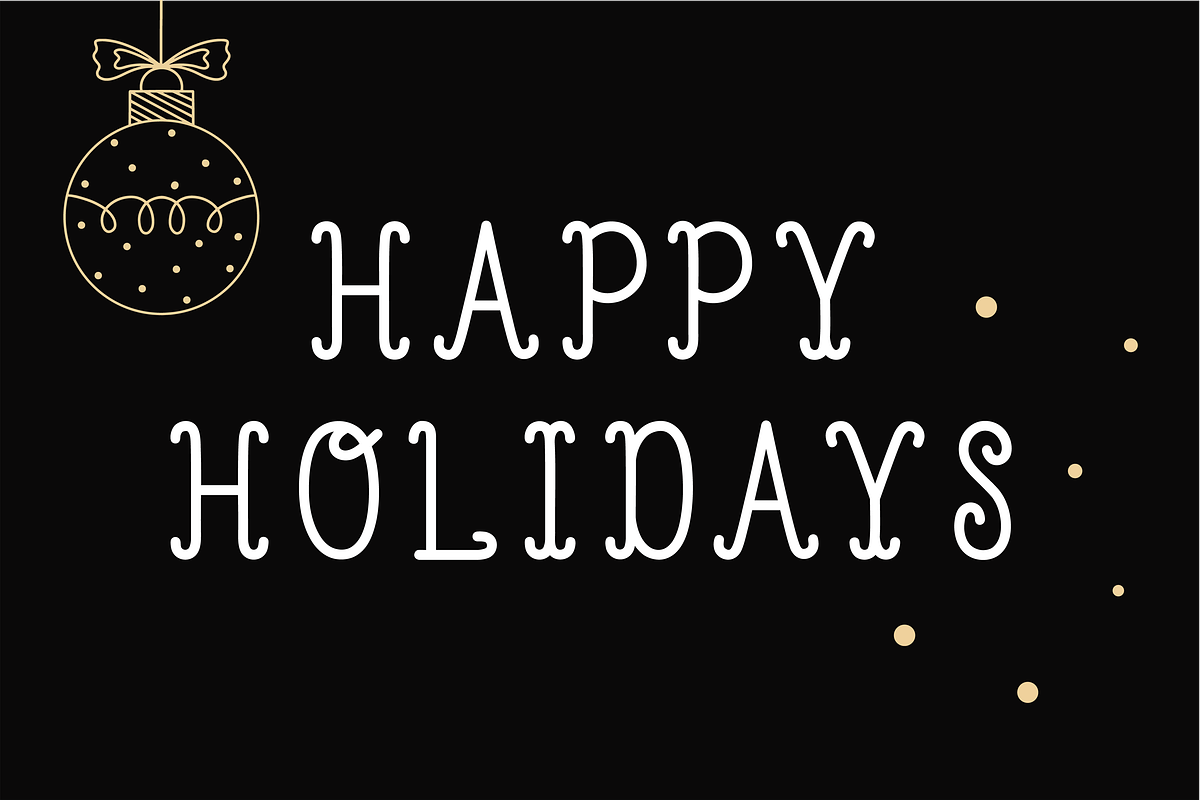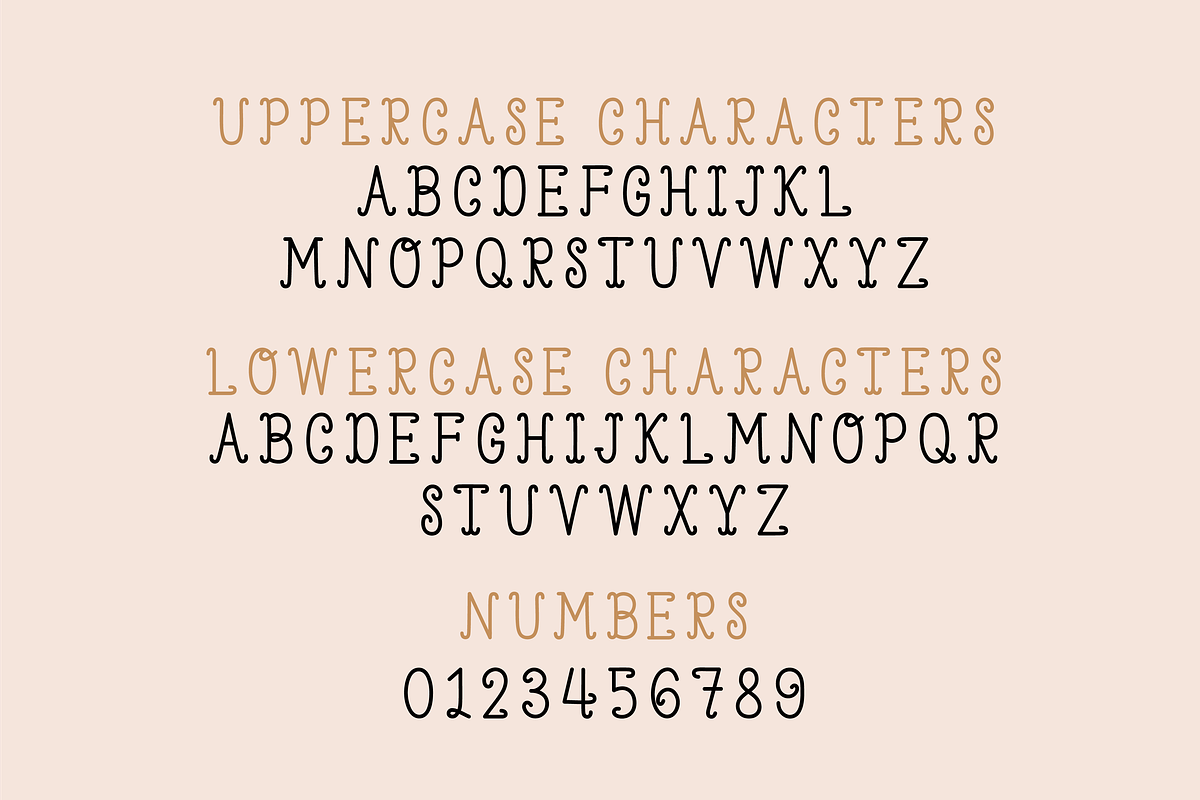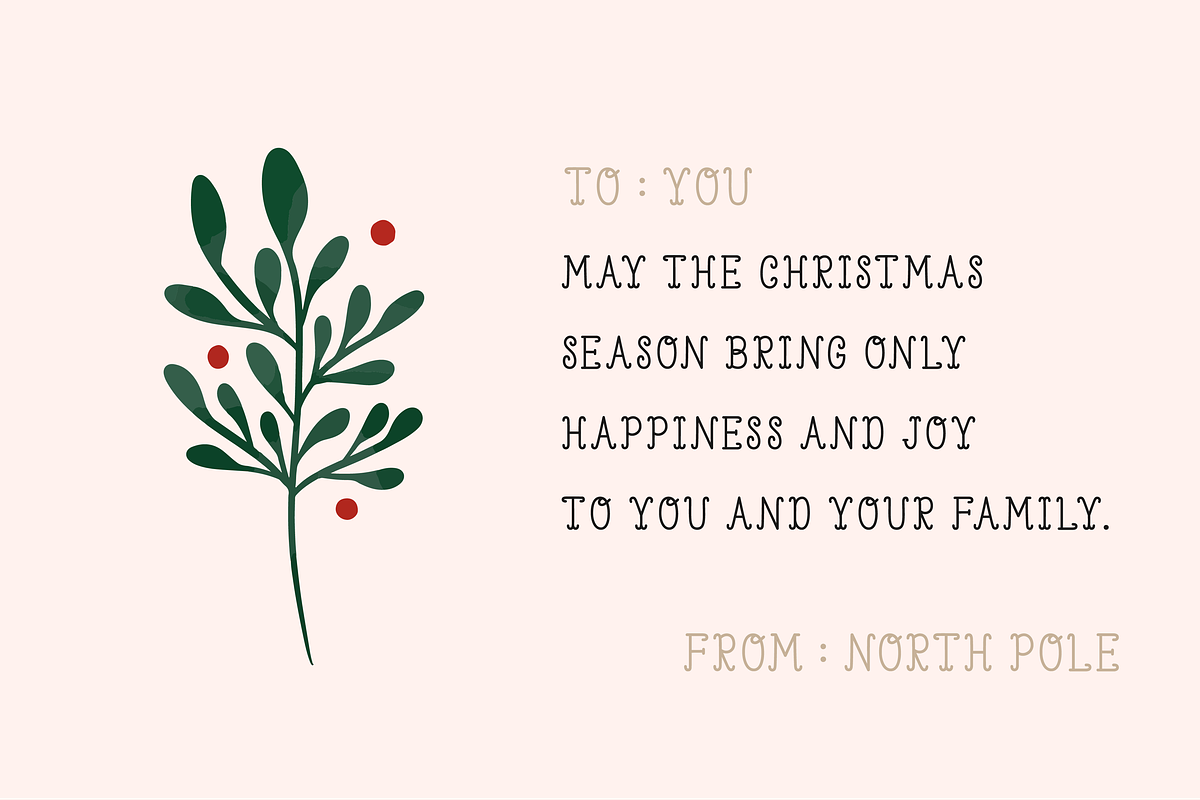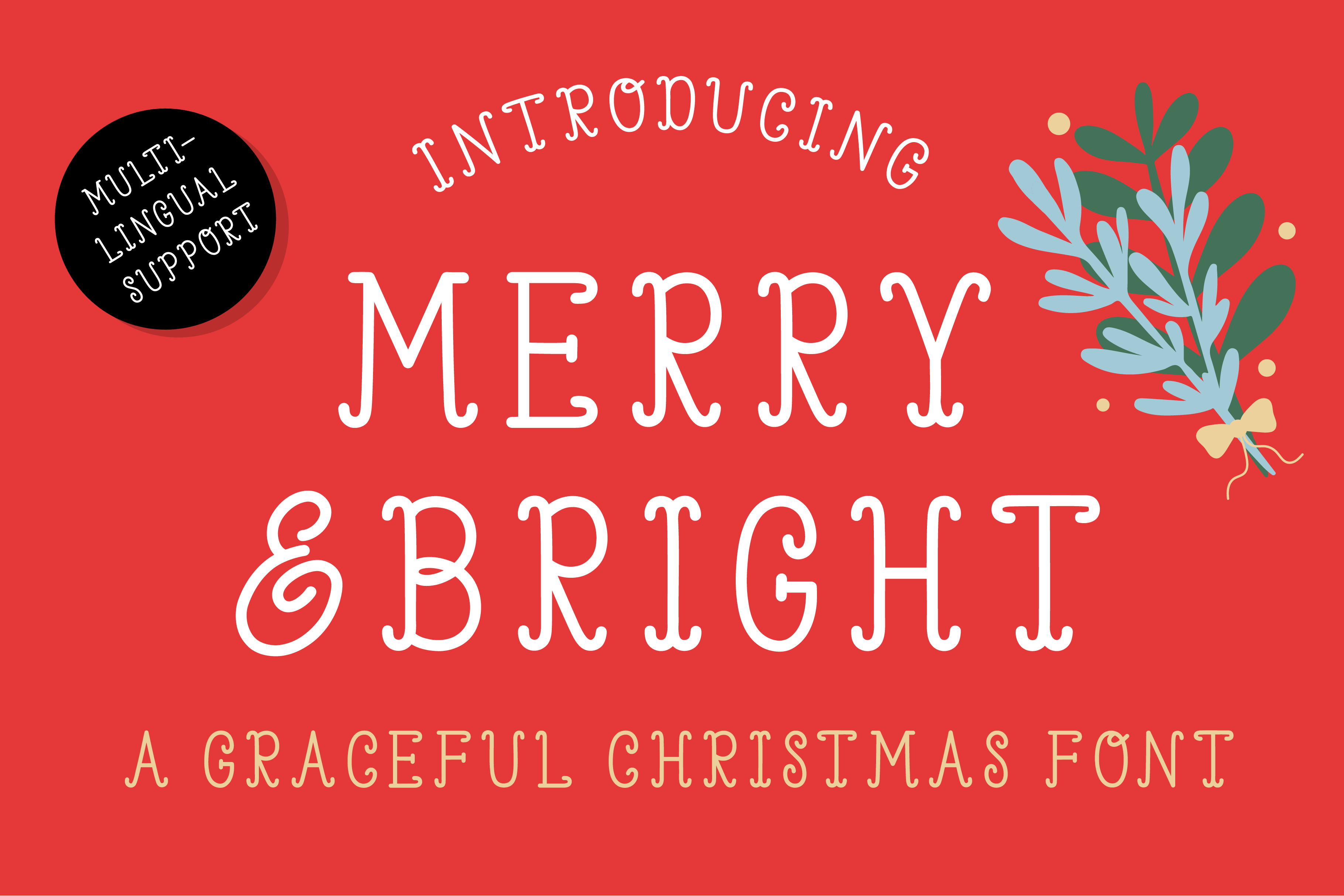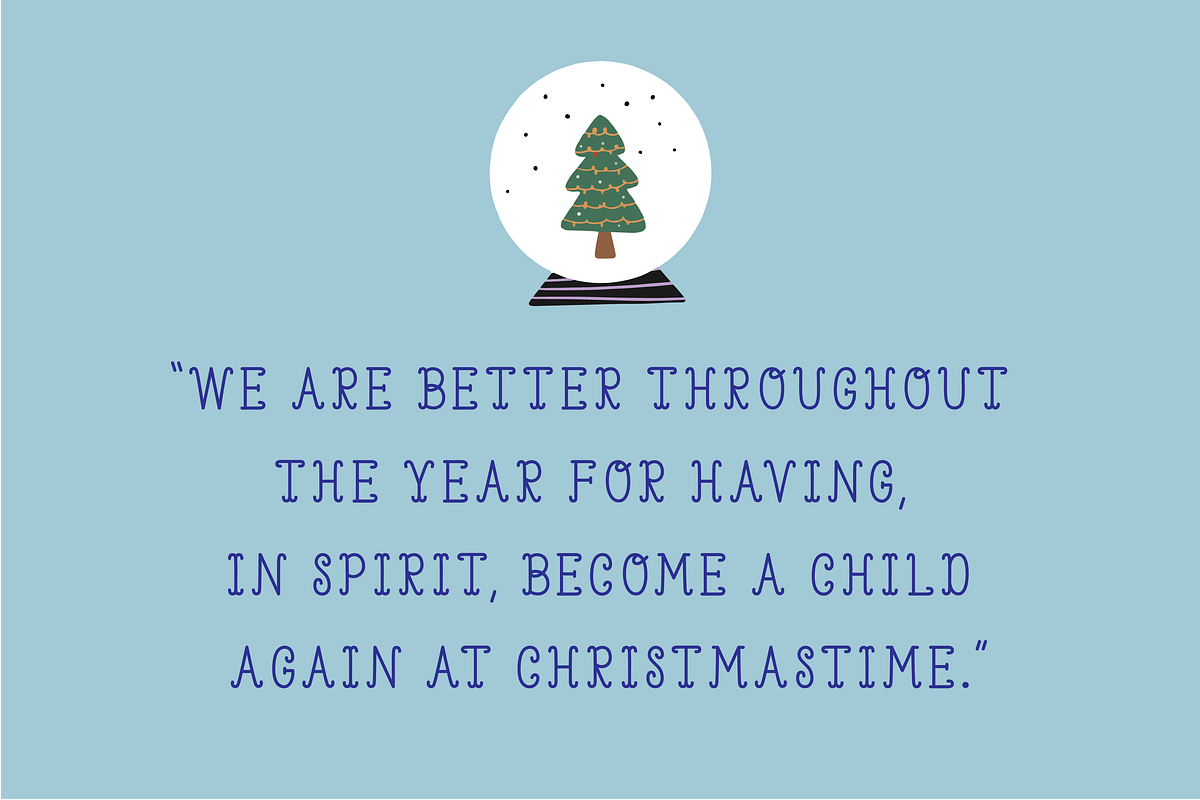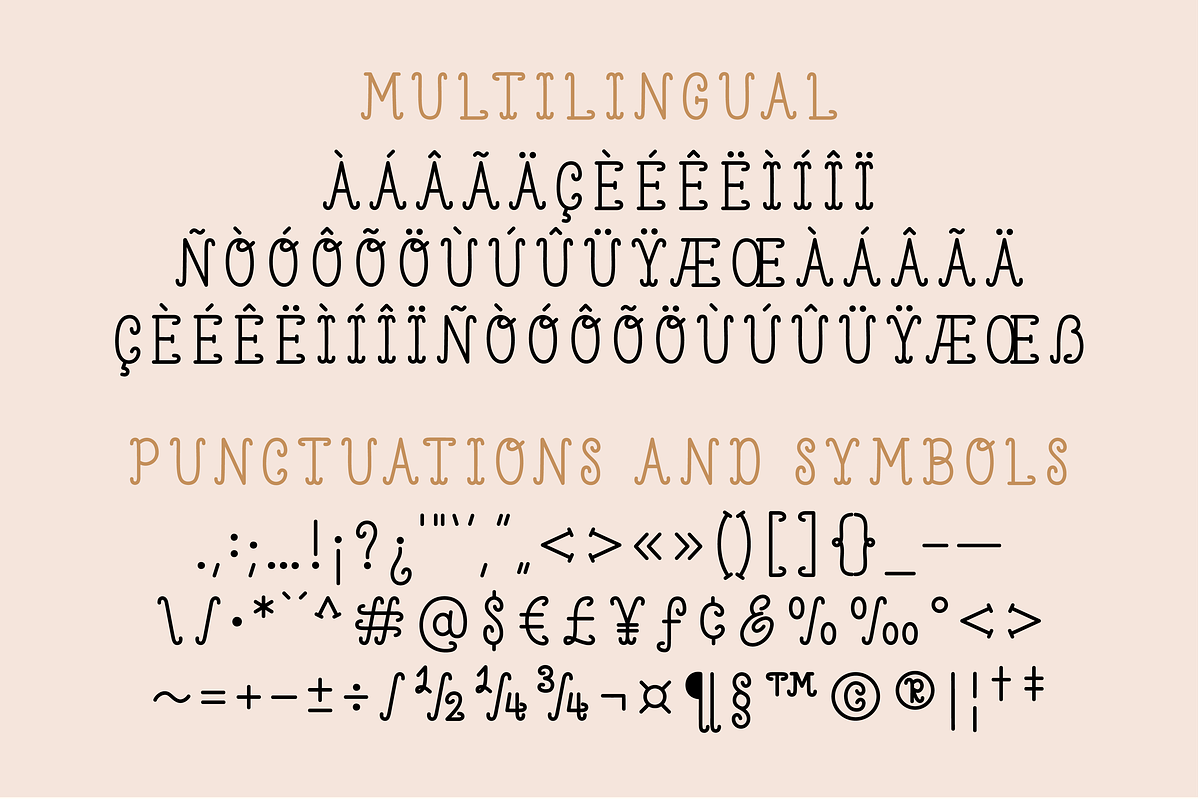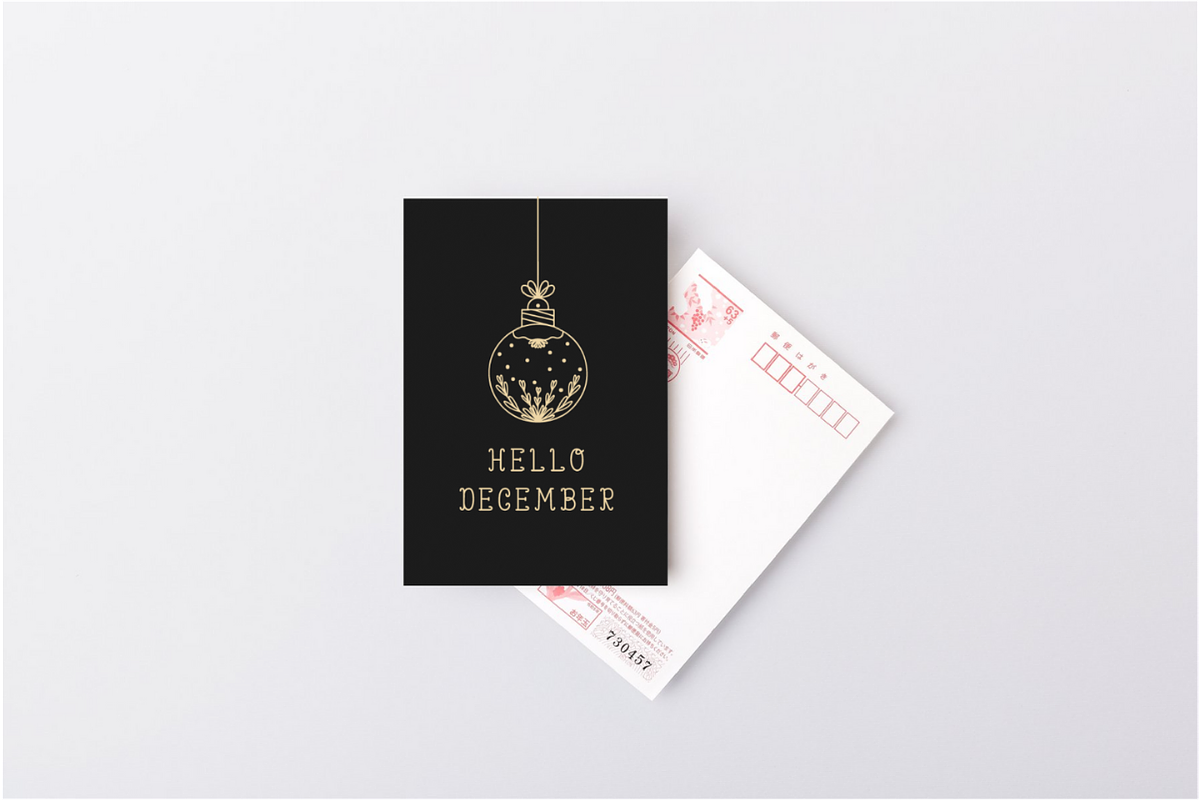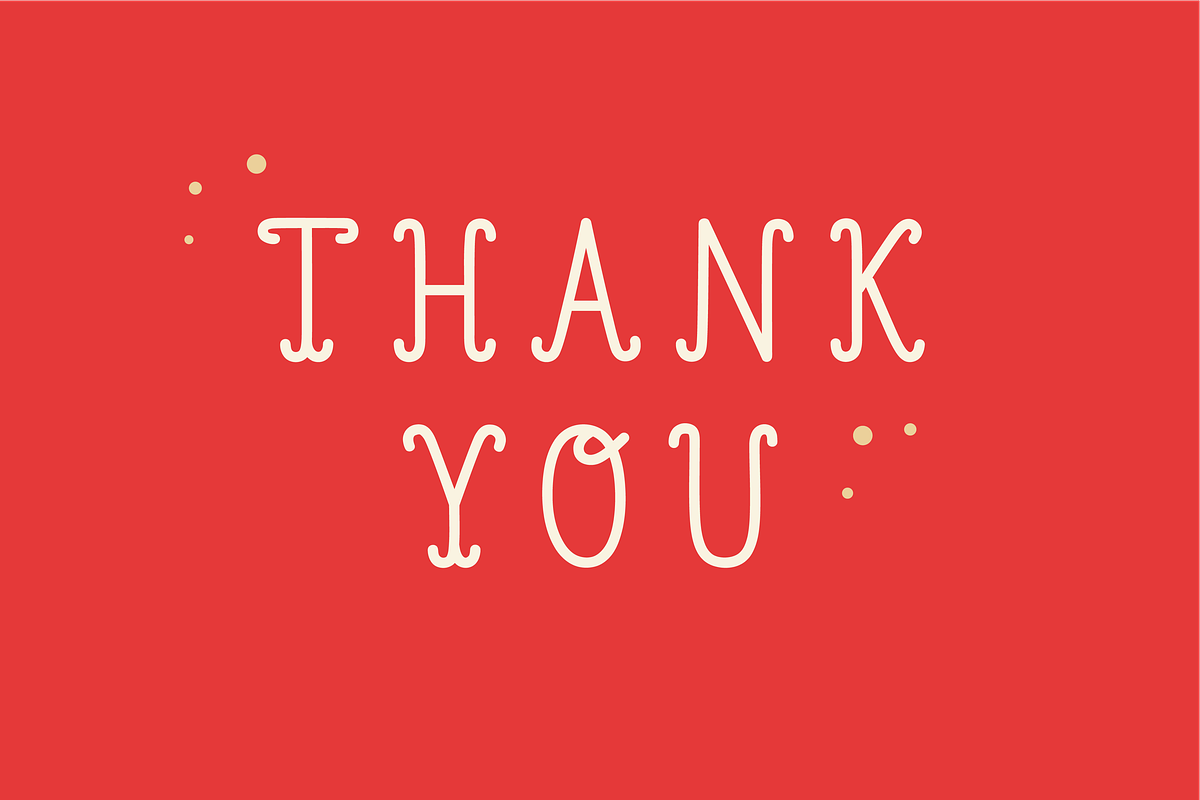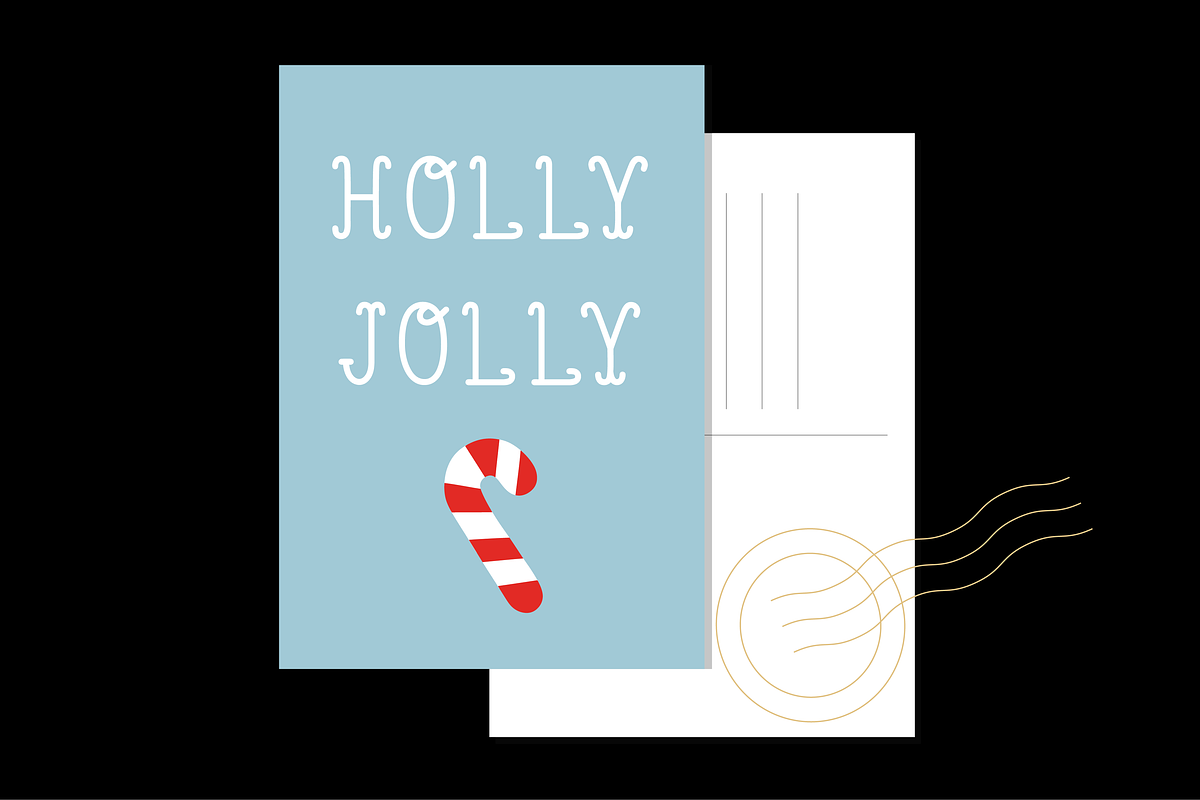
Merry and Bright font
MERRY AND BRIGHT is an elegant and beautiful Christmas font. Perfect for Christmas projects, shirts, retro designs, Christmas invitations, mugs, stickers, playful quotes, creating posters, logos, greeting cards, packaging, decorating the illustration and so much more!
Merry and bright Features:
- Extended punctuation.
- Multilingual Characters support.